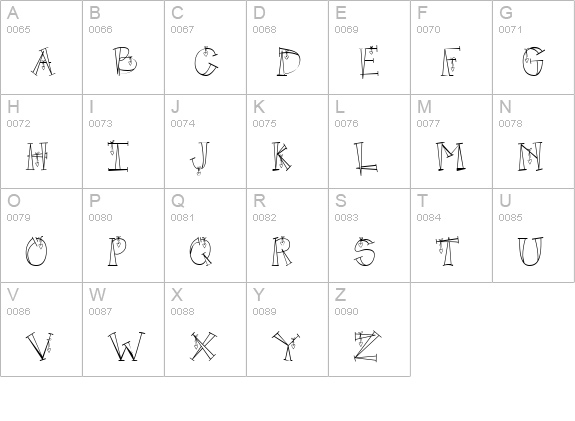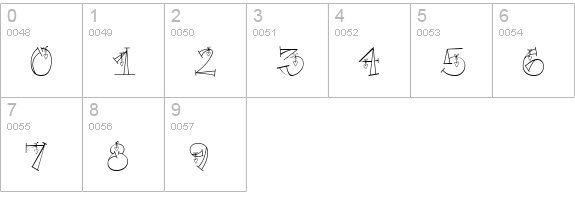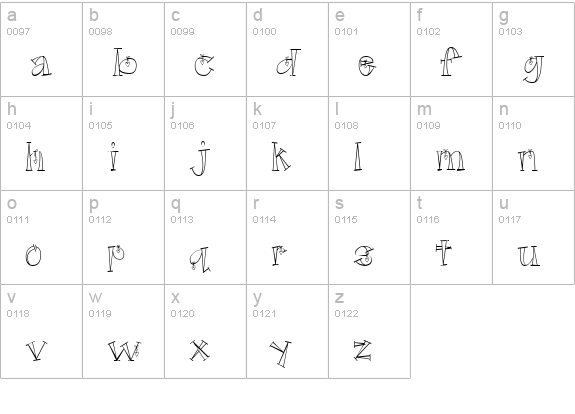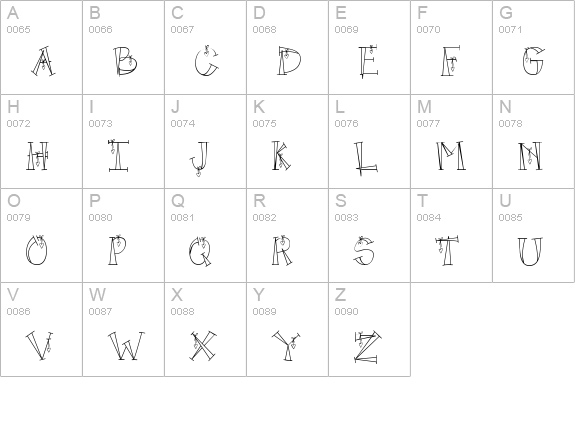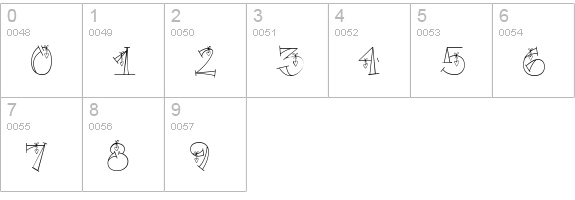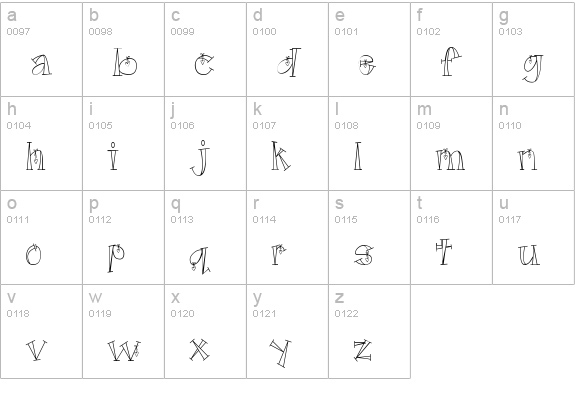
Introducing CK Hearts font, a charming and playful typeface that will add a touch of whimsy to your designs. This delightful font features heart-shaped details that are sure to capture the attention of your audience. CK Hearts is perfect for crafting invitations, greeting cards, posters, and more with a fun and romantic flair. And the best part? CK Hearts font is completely free to download at FontsMarket.com! This means you can easily add this lovely font to your collection without any cost. Don't miss out on the opportunity to enhance your projects with the sweet and lovable CK Hearts font today.